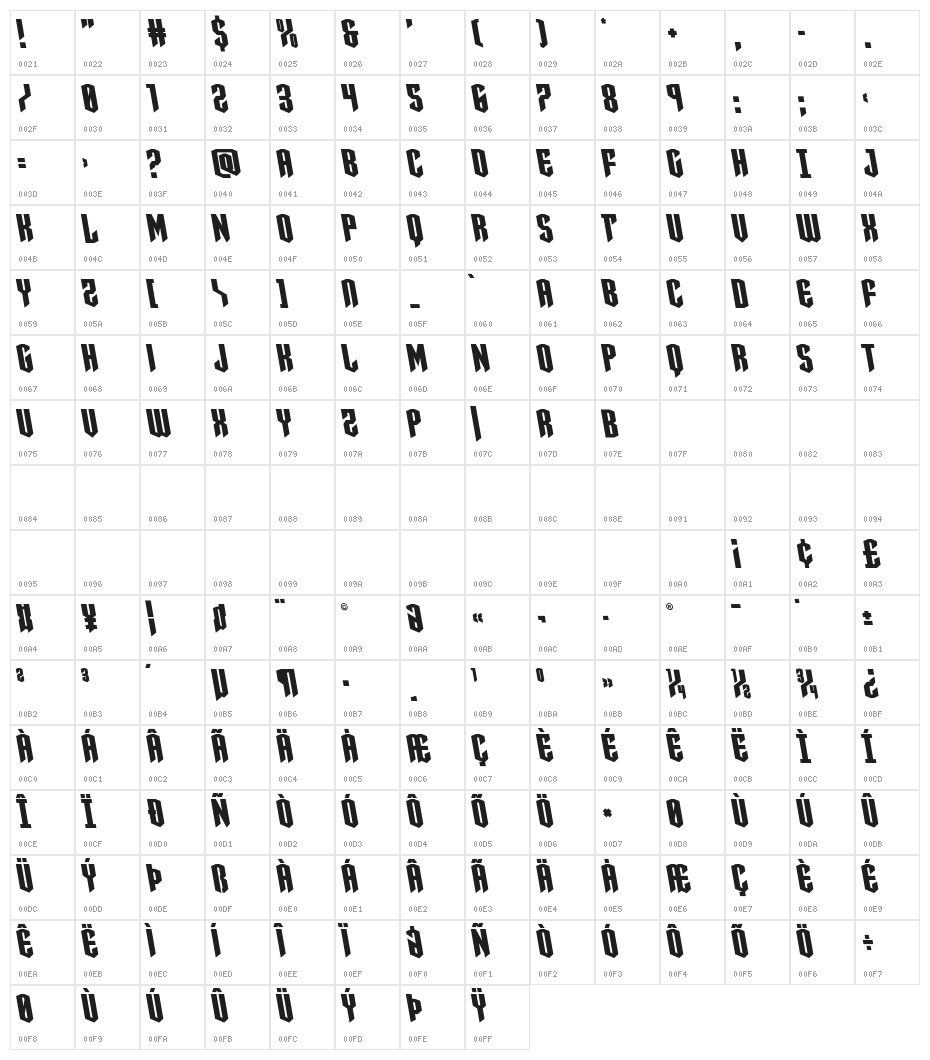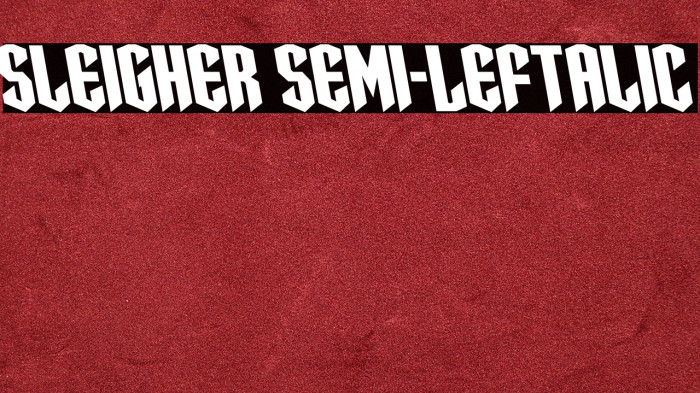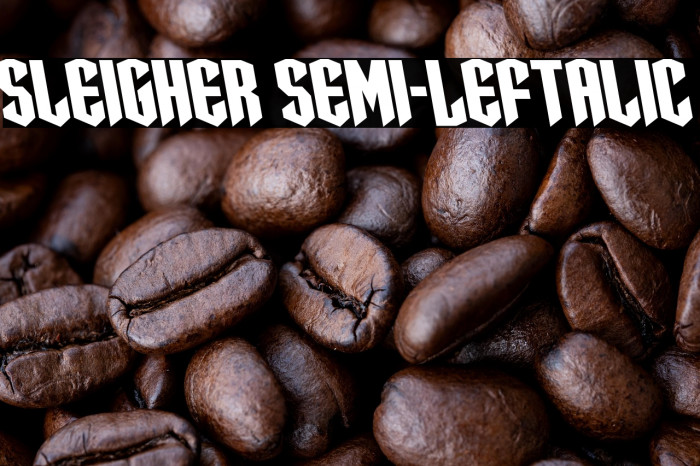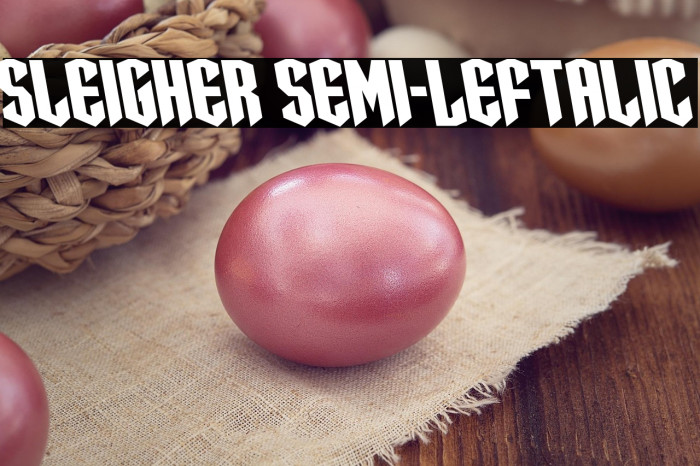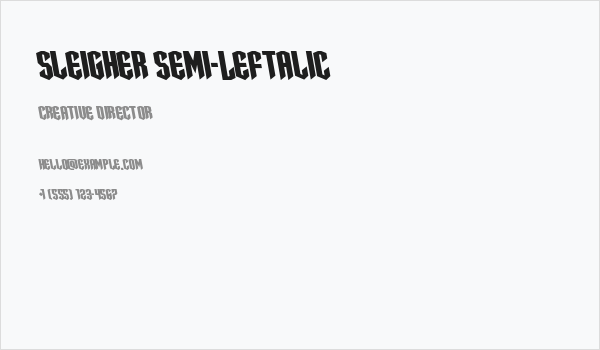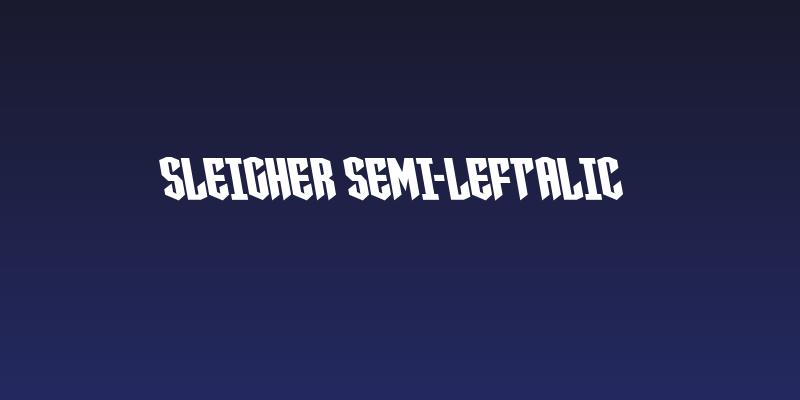
Sleigher Semi-Leftalic Font
Sleigher Semi-Leftalic Description
This font features a bold and angular design with a distinct slant to the left, giving it a dynamic and edgy appearance. The characters are sharply cut, with a geometric style that emphasizes strong lines and pointed edges. The uppercase and lowercase letters maintain a consistent style, while the numerals and special characters complement the overall aesthetic. This font's unique style makes it stand out, ideal for projects that require a bold statement.